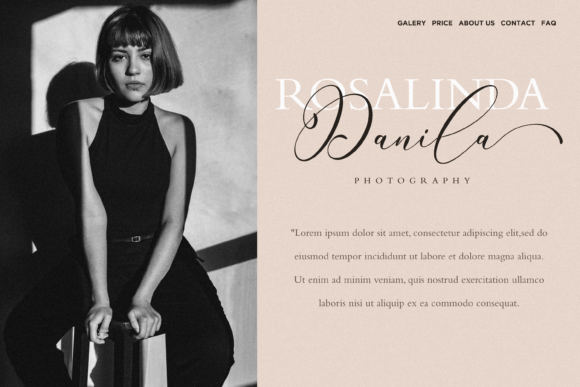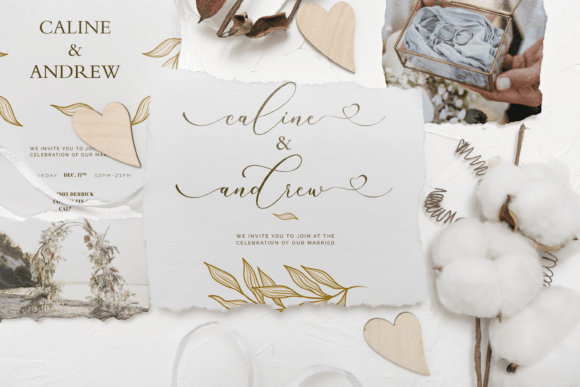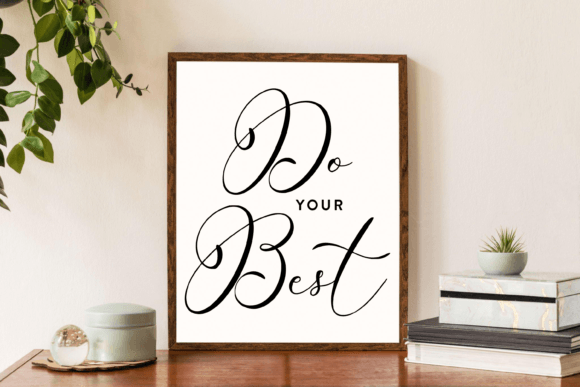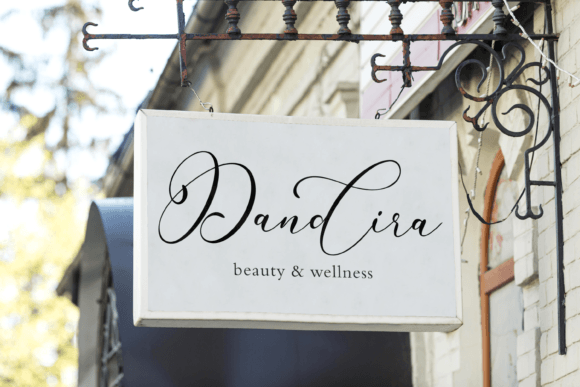
About Rintica Font
Rintica is a lovely script font with splendid ligatures, swashes, and alternates.
Rintica is perfect for product packaging, branding project, magazines, social media, weddings, or just used to express words above the background.